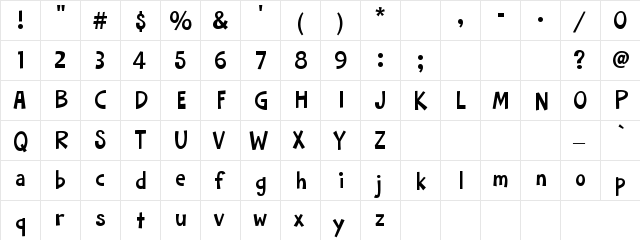
IGuessOnePKA Regular
Design Context for IGuessOnePKA Typeface
IGuessOnePKA takes a measured approach to typography — its balanced proportions and neutral character make it a reliable workhorse for both digital and print work.